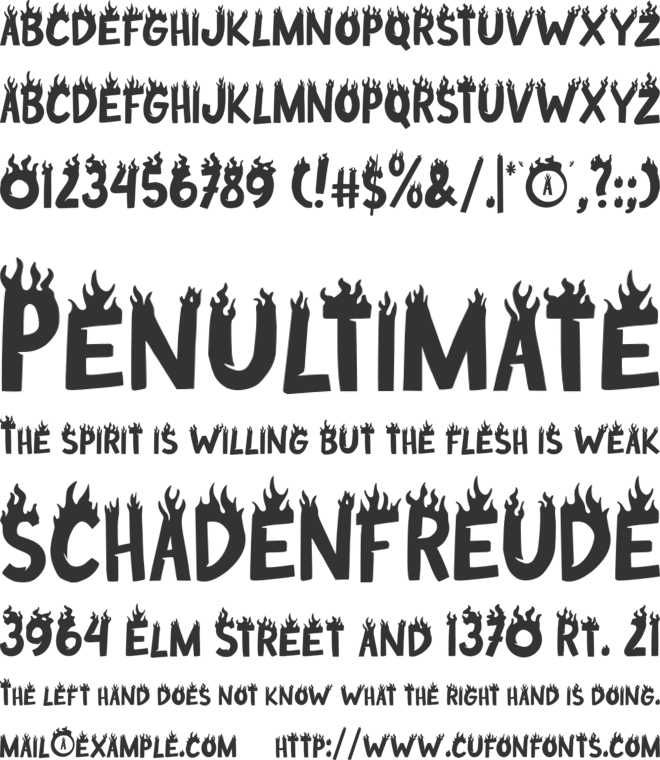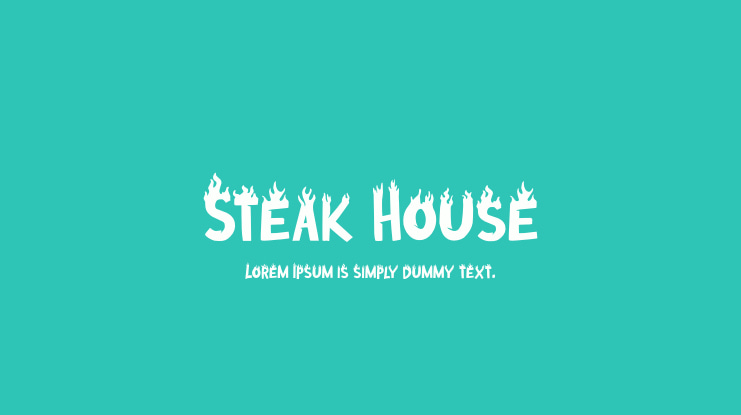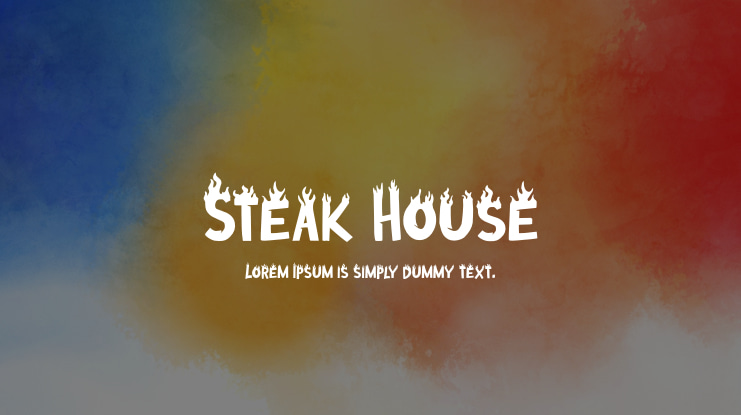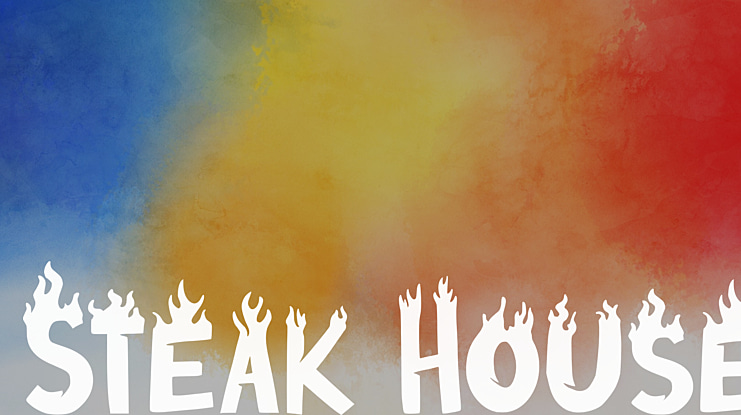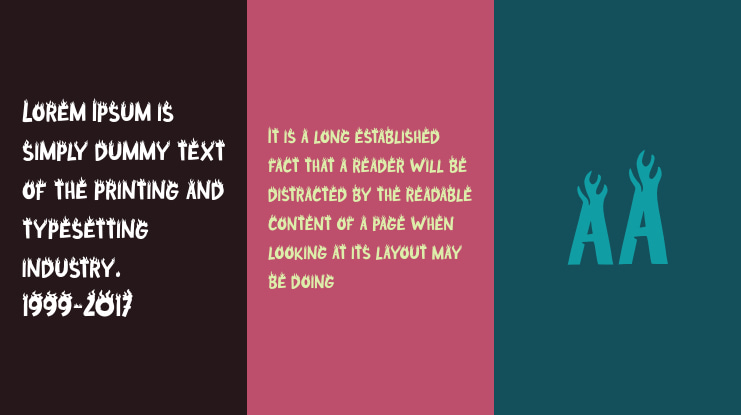
Steak House Font
Steak House is a fiery and fun display font that has burning feel.Steak House has a fiery effect, it’s the perfect font for giving any design a fiery and burning feel, spices brand, or maybe grilled delicious food!Full Version Download Here :https://typefactory.co/product/steak-house-display-burn-font/https://www.creativefabrica.com/product/steak-house/ref/501262/